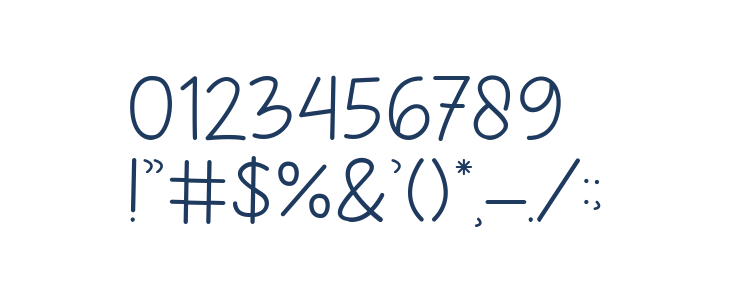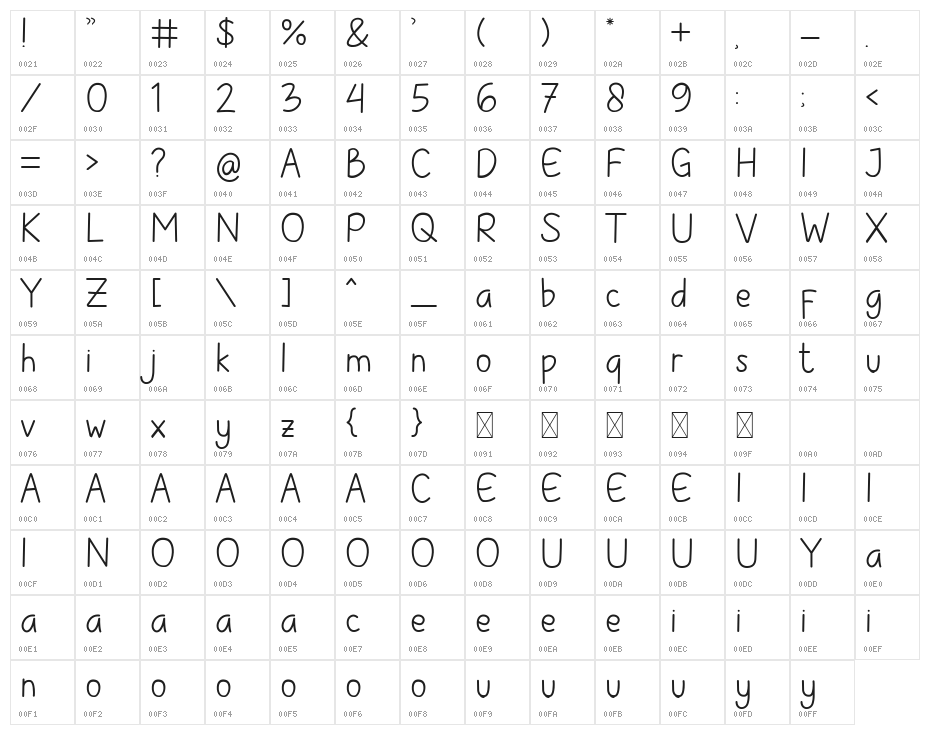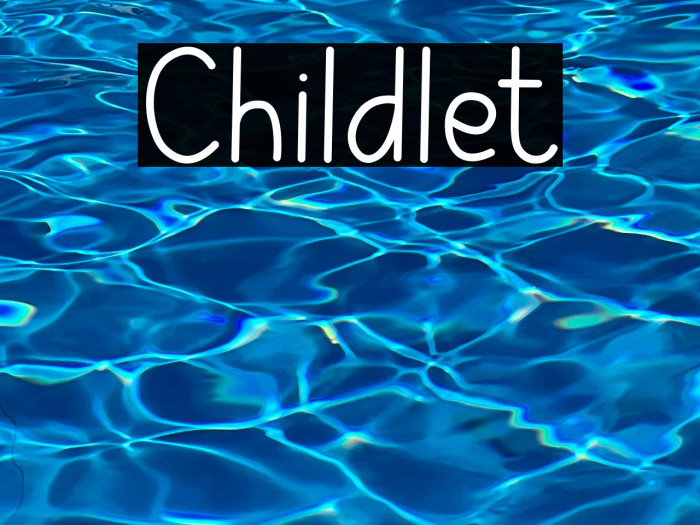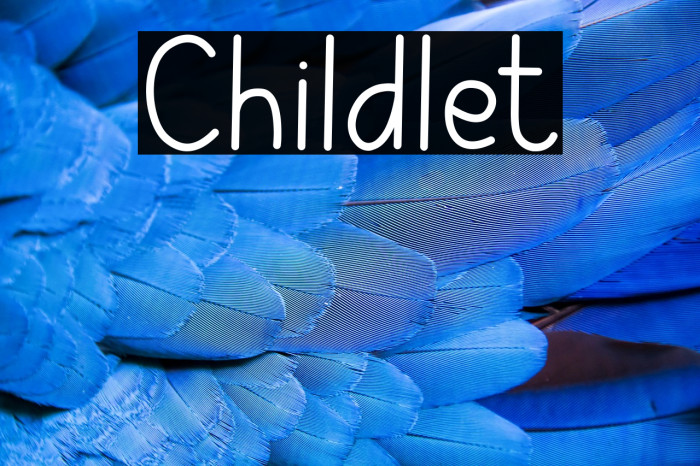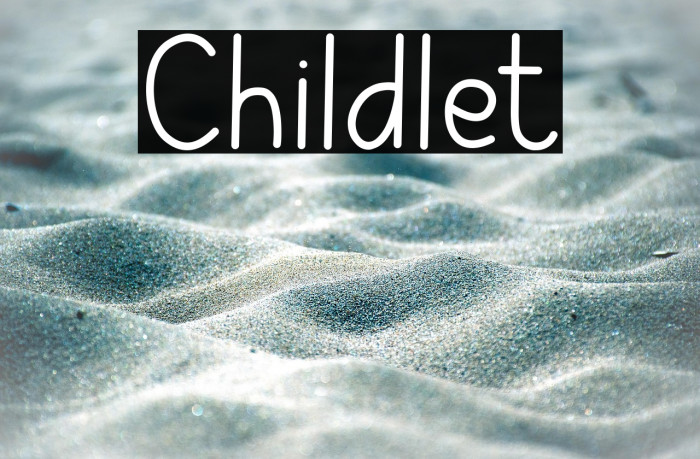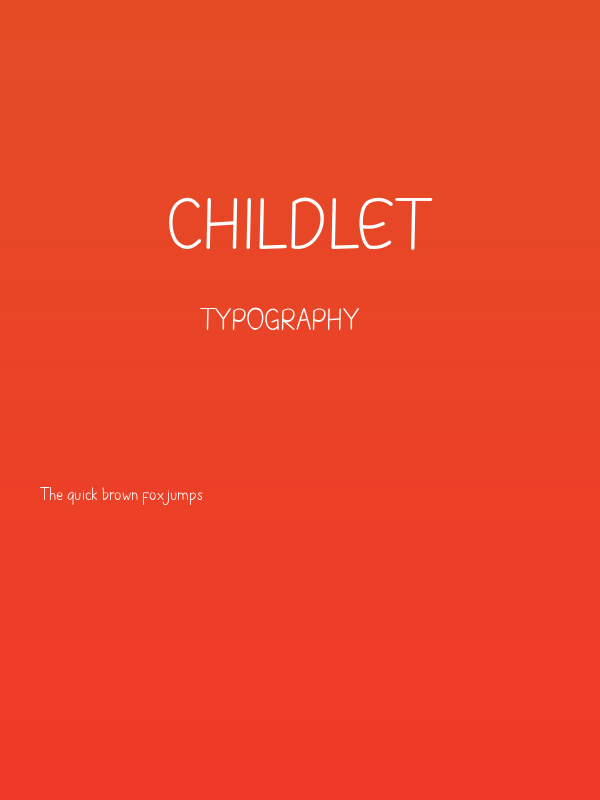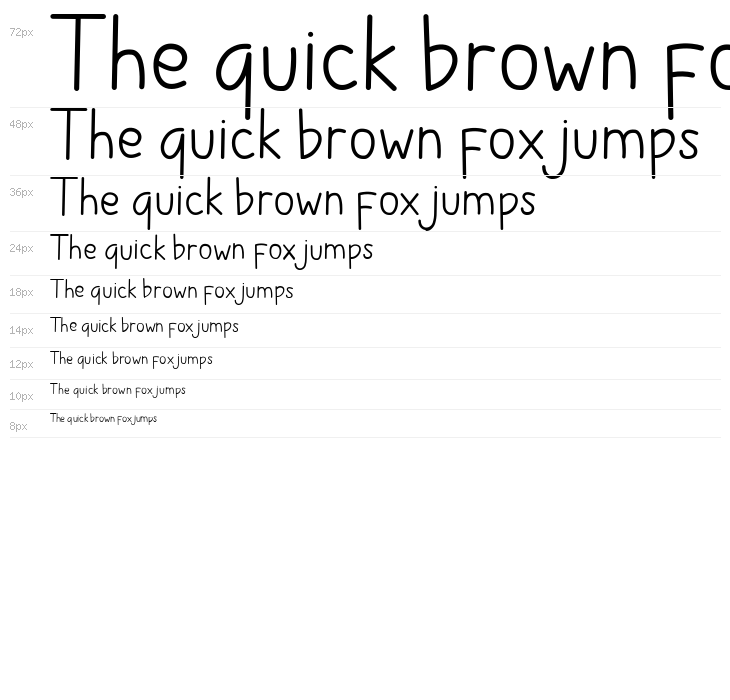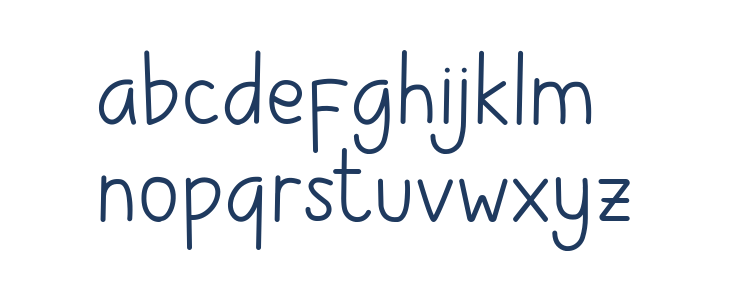
Childlet Font
Childlet Description
This playful and whimsical font features a handwritten style with a casual and friendly appearance. The letters are slightly uneven, adding to its charm and making it feel approachable and informal. The strokes are consistent in weight, giving it a uniform look while maintaining a sense of spontaneity. The rounded edges and smooth curves contribute to its childlike and joyful aesthetic, making it ideal for projects that require a touch of fun and creativity. The font includes a full set of uppercase and lowercase letters, numbers, and a variety of special characters, ensuring versatility in its use.
Overall StylePlayful
Use CaseHeadlines, Logos, Invitations
Proposed ProjectsIdeal for children's books, educational materials, playful branding, and creative invitations.